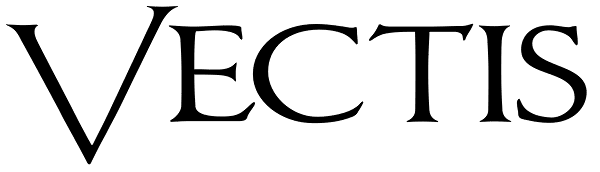
Vectis
Vectis, named in honor of the Roman settlement of Britain's south coast on the Isle of Wight, brings a fresh approach to the classic simple elegance of ancient Roman faces. Vectis is offered as a small caps face designed to add a fresh hint of...